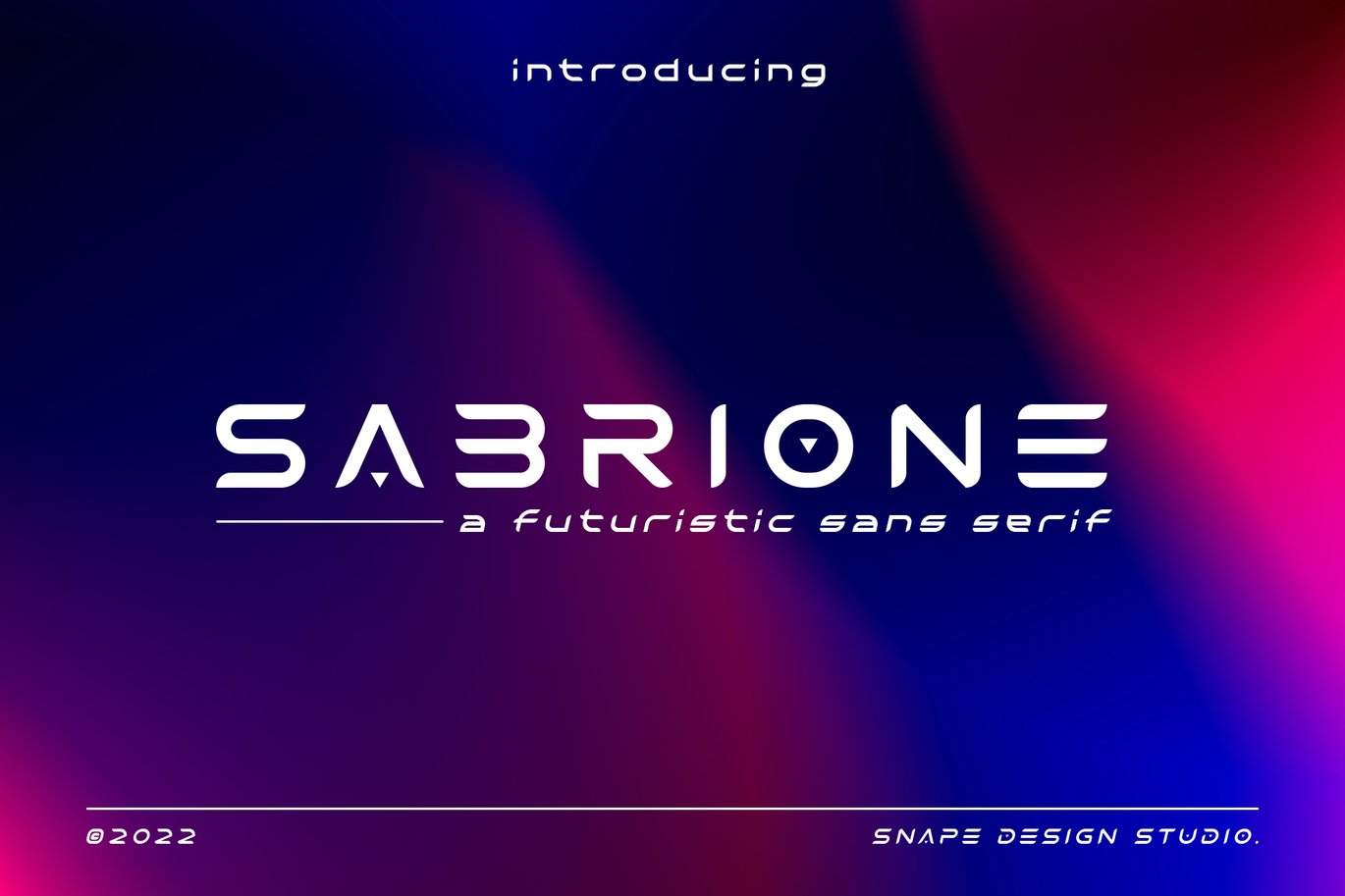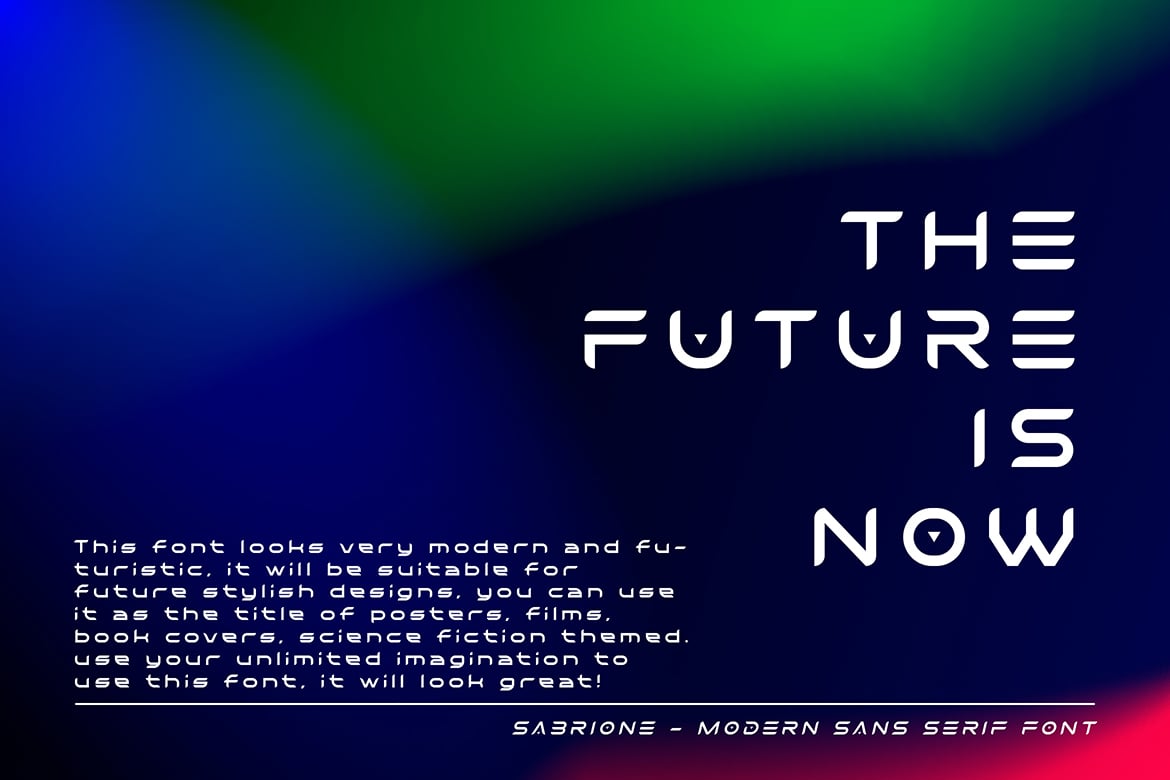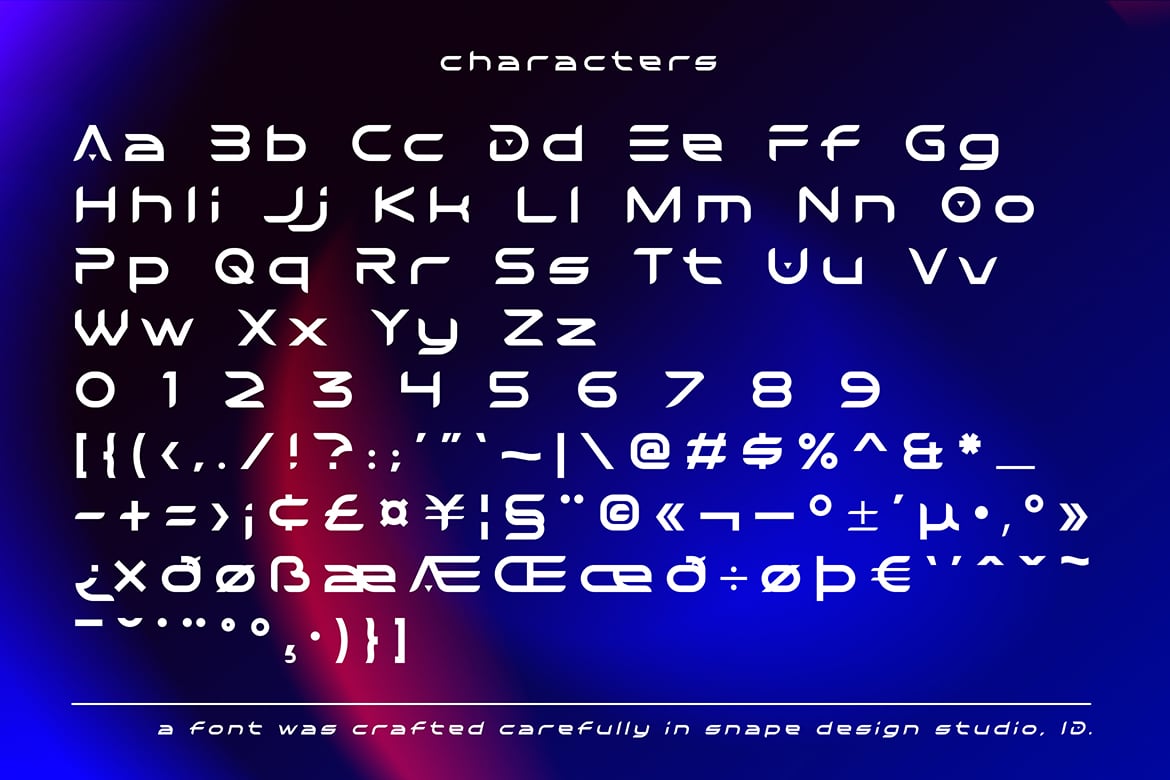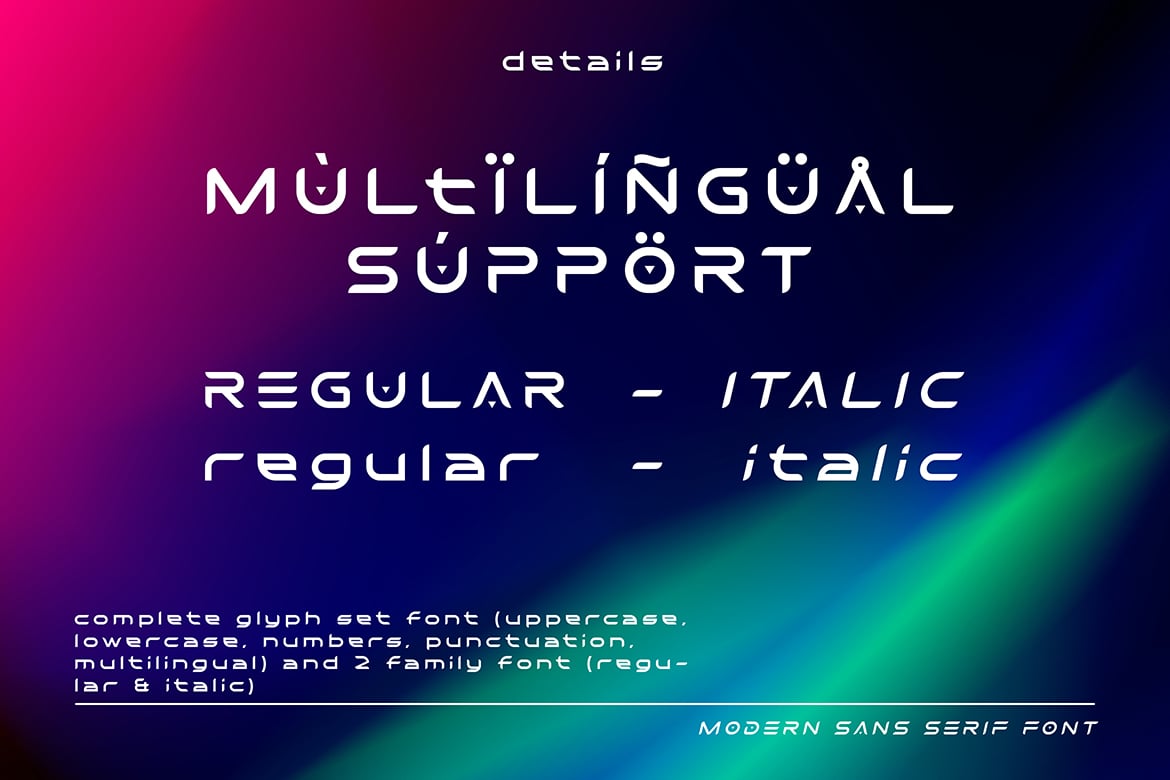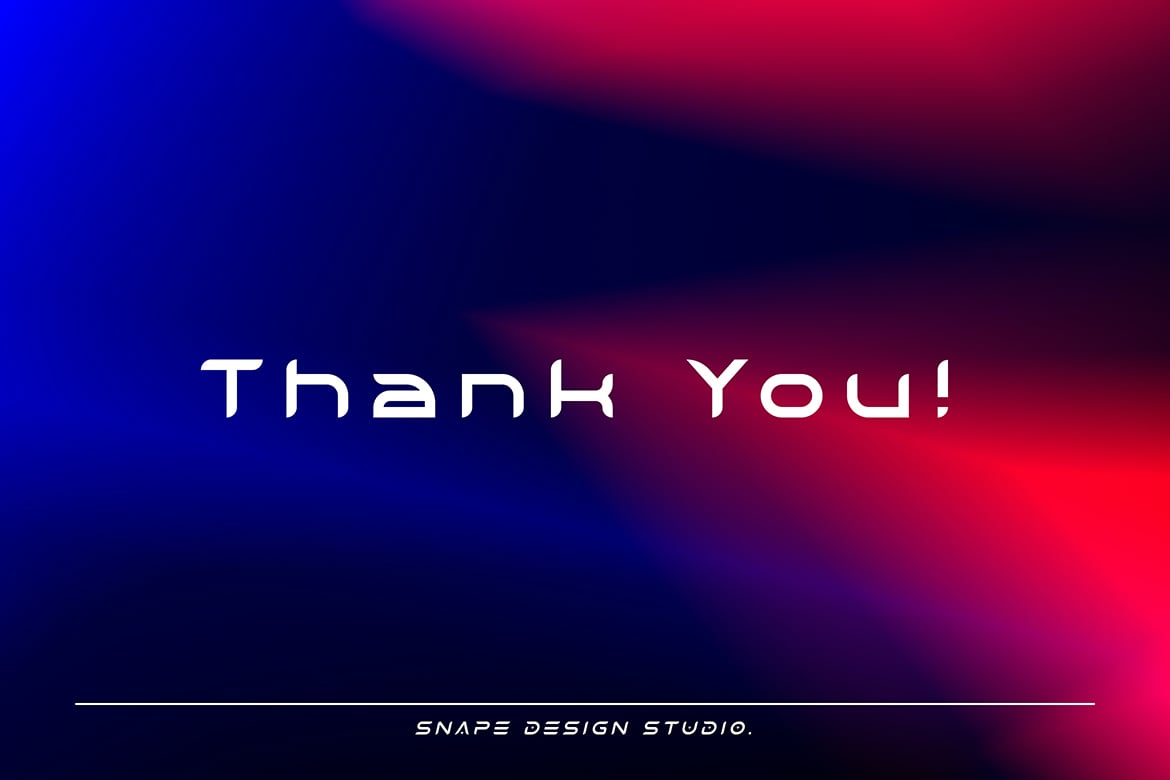
Sabrione – Futuristic Font
Sabrione is a modern futuristic font. Sabrione perfect for technology, digital, space galaxy theme. Also suitable for movie, documenter, film, logo, poster, game, book cover, headlines, title and many more projects.
Great for Logo, Sticker, Notes, Invitation Card, Brochure, etc.